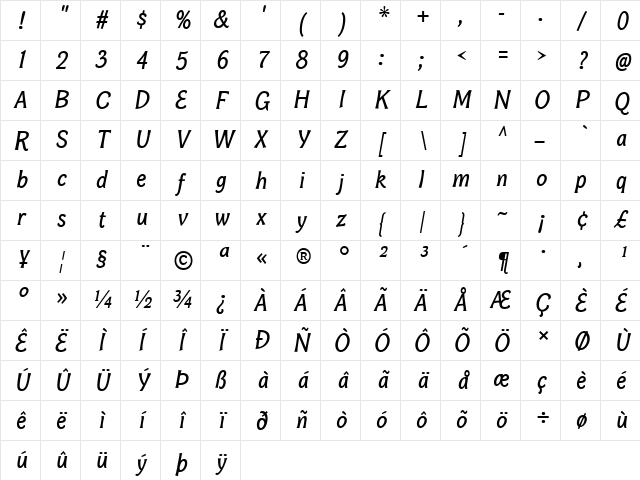
Bonobo SemiBold Italic
Bonobo SemiBold Family
Design Context for Bonobo SemiBold
Bonobo SemiBold is a composed and adaptable typeface that performs quietly and consistently across a wide range of design contexts. The slanted form adds forward momentum and visual energy. Its bold stroke weight gives it real presence on the page.
Pro Tip: Use Bonobo SemiBold for emphasis, pull quotes, and subheadings where its slanted energy can add rhythm to the layout.